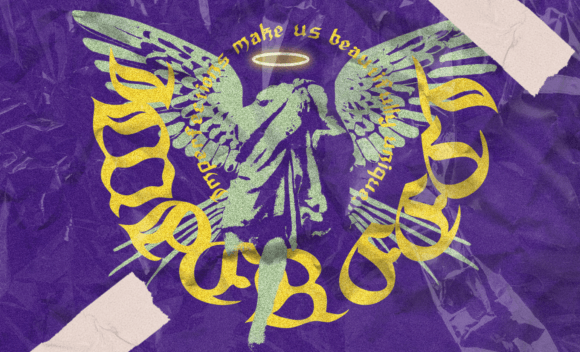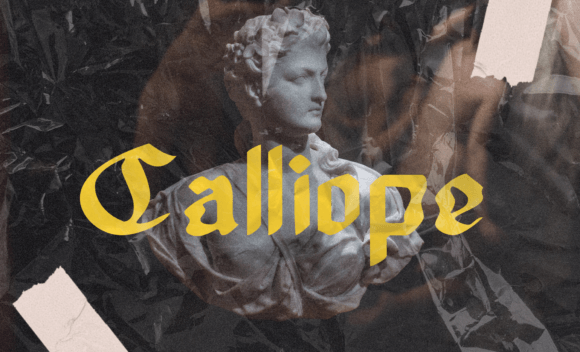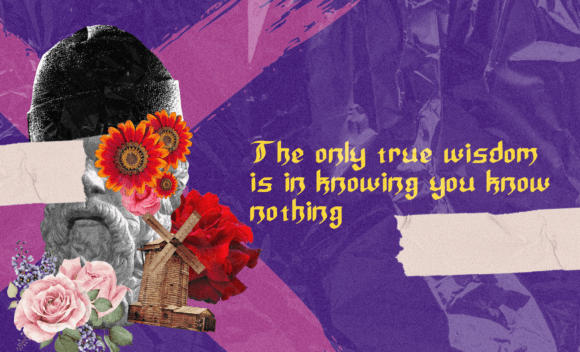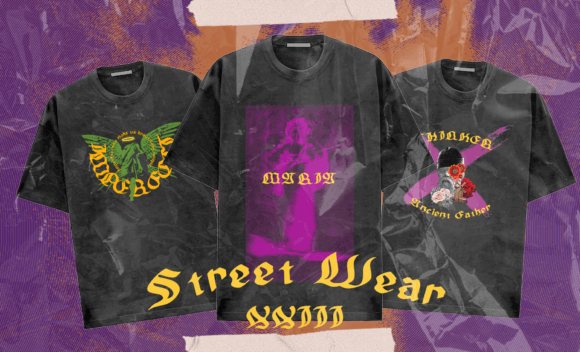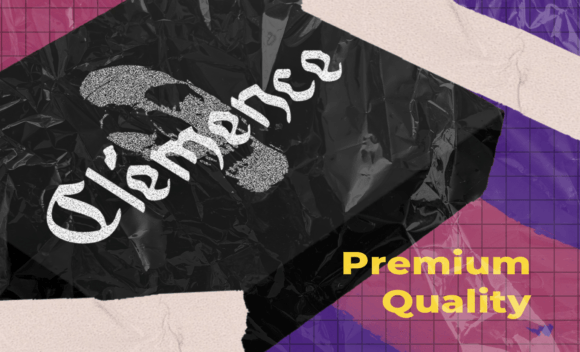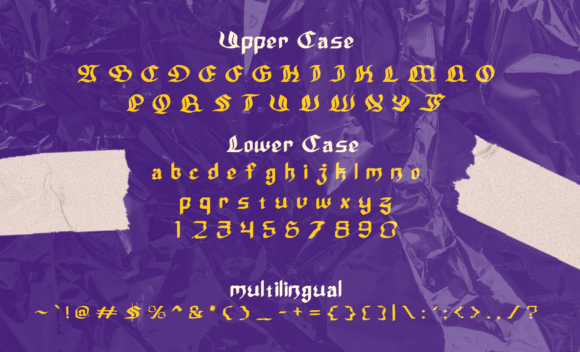
Introduction to Goldwyre Font
Have you ever stared at a blank canvas, wondering which font to choose for your creative project? The perfect typographic solution can make all the difference between a mediocre design and a show-stopping masterpiece. For designers seeking a captivating and stylish font, we’re excited to introduce the Goldwyre Font – a game-changing typeface that seamlessly blends elements from medieval to modern times.
With its bold calligraphic strokes and Gothic Blackletter inspiration, the Goldwyre Font is a versatile design resource that’s perfect for a wide range of creative projects. Whether you’re working on a poster, marketing material, or title design, this high-quality font is sure to elevate your work. And the best part? The Goldwyre Font is available in regular and bold weights, making it easy to customize to suit your needs.
Key Features of Goldwyre Font
- High-quality, elegant font design ideal for creative projects, including invitations, logos, and branding materials.
- Designed to work well at high resolutions, ensuring crisp and clear text output even at large sizes.
- Features a unique, cursive script style that adds a touch of sophistication to any design project.
Honest Review: Goldwyre Font
I recently had the chance to work with the Goldwyre Font, and I must say it’s been a game-changer for my creative projects. This high-quality font is perfect for designers who want to add a touch of elegance and sophistication to their work.
- Beautiful, intricate details that make it perfect for creative projects.
- High-quality design that’s perfect for print or digital use.
- Limited character set may make it difficult to use for longer texts.
- Not ideal for projects that require a bold, eye-catching font.
Overall, I’m impressed with the Goldwyre Font. It’s a great addition to any designer’s toolkit, and I’d highly recommend it for creative projects that require a touch of sophistication. While it may have some limitations, its high-quality design and transparent background make it a valuable design resource.
The Goldwyre Font is ideal for use in a variety of creative projects, including wedding invitations, business cards, and social media graphics. Its elegant style makes it perfect for formal events and professional designs.